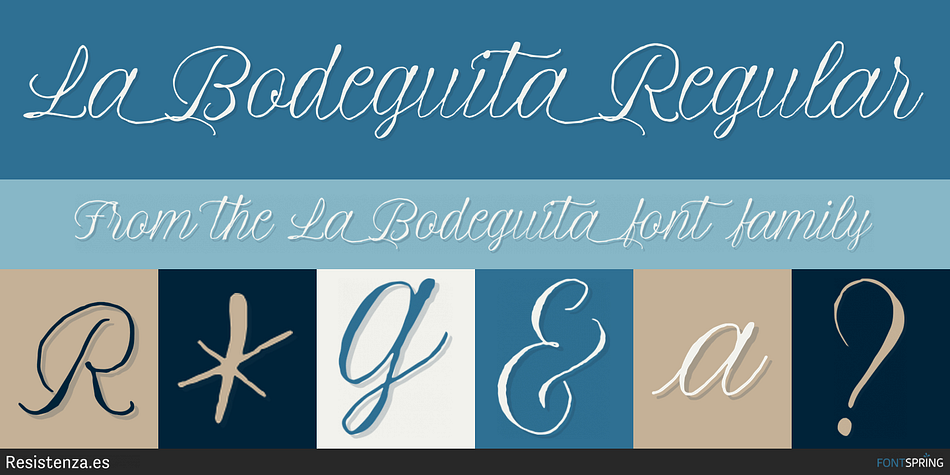
Designed by Giuseppe Salerno and Paco González, La Bodeguita is a dingbat and hand drawn font family. This typeface has three styles and was published by Resistenza.es.
La Bodeguita Regular
La Bodeguita is a new calligraphic font carefully designed with walnut ink and a Spencerian feather on an oblique penholder. Bodega means “wine cellar”, Bodeguita “small wine cellar”
This font contains 2 styles, La Bodeguita Regular & La Bodeguita Slanted + one swashes and ornaments. More than 400 glyphs
We recommend to use La Bodeguita for Labels design, notes, cards, wedding cards etc.